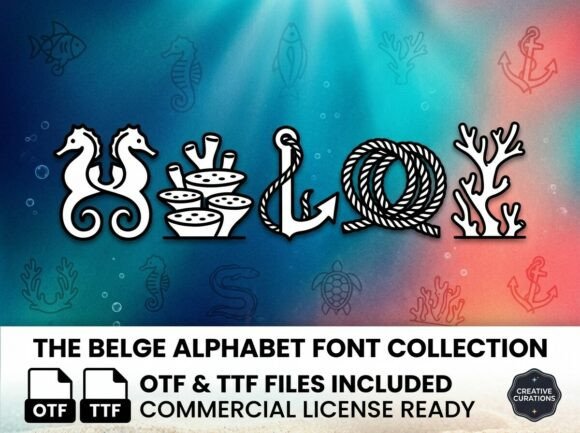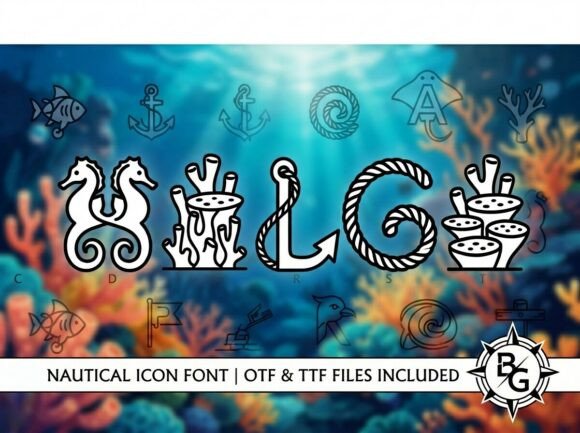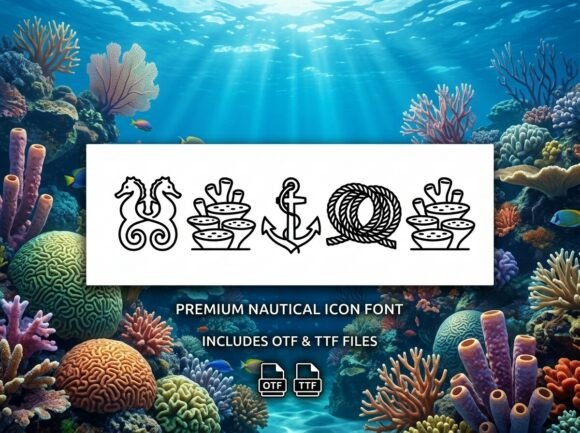
Set Sail for Creativity with Belge Font: The Ultimate Maritime Display Typeface
Are you a designer or crafter looking for a unique and adventurous font to elevate your brand or project? Look no further than Belge Font, a maritime display typeface that embodies the spirit of the coast. With its bold, blocky letterforms and rhythmic, hand-drawn “underwater” illustrations, Belge is the perfect choice for anyone seeking to make a splash in the world of nautical branding.
The Inspiration Behind Belge Font
Belge Font is inspired by the intersection of marine biology sketches and modern nautical branding. Its creator sought to capture the essence of the coast, with all its intricate details and sense of adventure. The result is a font that is both bold and beautiful, with a unique personality that sets it apart from other typefaces.
Key Features of Belge Font
So, what makes Belge Font so special? Here are just a few of its key features:
- Bold, blocky letterforms: Belge Font features sturdy, attention-grabbing letterforms that are perfect for headlines, titles, and other display text.
- Rhythmic, hand-drawn illustrations: Each letterform is accompanied by intricate, hand-drawn illustrations that evoke the underwater world of the coast. These illustrations include seahorses, coral reefs, anchors, and coiled ropes, adding a touch of whimsy and personality to the font.
- Heavy structural weight: Belge Font has a robust, substantial feel that makes it perfect for use in high-impact applications, such as social media headers and branding materials.
- Adventurous personality: Belge Font is not for the faint of heart. It’s a font that says, “I’m bold, I’m fearless, and I’m ready to make a statement.”
Use Cases for Belge Font
So, what kinds of projects is Belge Font suited for? Here are a few ideas to get you started:
- Independent seafood restaurant identities: Belge Font is a natural fit for seafood restaurants looking to establish a bold, coastal brand.
- Boutique surf shop logos: If you’re a surfer or a surf shop owner, Belge Font is the perfect choice for creating a logo that’s both fun and fearless.
- Tropical resort branding: Belge Font captures the essence of the coast, making it an excellent choice for tropical resorts and hotels.
- High-impact social media headers: If you want to make a statement on social media, Belge Font is the way to go. Its bold, eye-catching letterforms and illustrations are sure to turn heads.
Why Choose Belge Font?
In a world of generic, cookie-cutter fonts, Belge Font stands out as a true original. Here are just a few reasons why you should consider choosing Belge Font for your next project:
- Unique personality: Belge Font has a personality that’s all its own, making it perfect for designers and crafters who want to stand out from the crowd.
- High-quality design: Belge Font is meticulously designed, with attention to every detail, from the bold letterforms to the intricate illustrations.
- Versatility: Belge Font can be used in a wide range of applications, from branding and advertising to packaging and web design.
In conclusion, Belge Font is a maritime display typeface that’s sure to make a splash in the world of design. With its bold, blocky letterforms, rhythmic illustrations, and adventurous personality, Belge Font is the perfect choice for designers and crafters who want to capture the essence of the coast. Whether you’re working on a seafood restaurant identity, a boutique surf shop logo, or a tropical resort brand, Belge Font is the ultimate choice for anyone seeking to set sail for creativity.